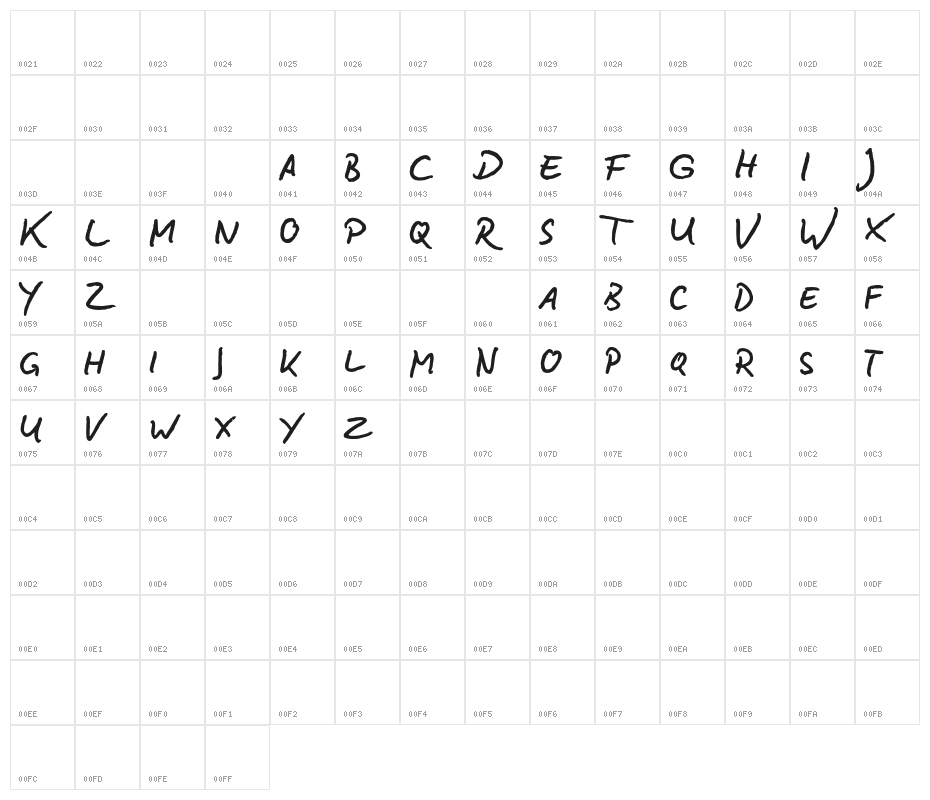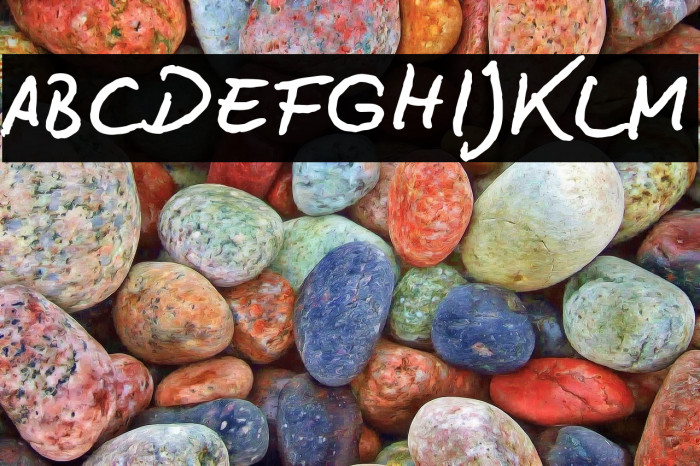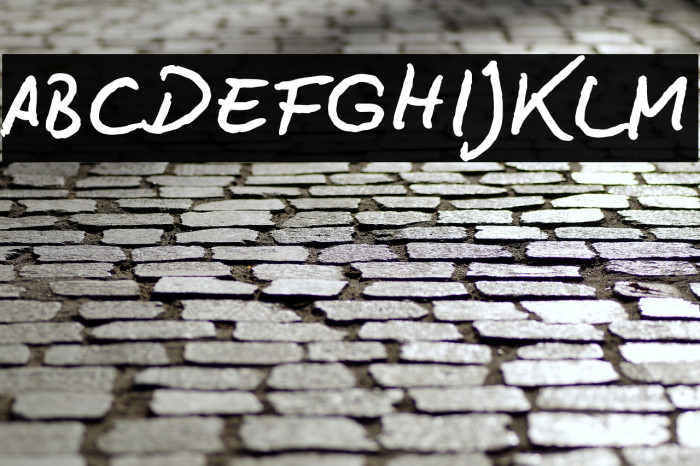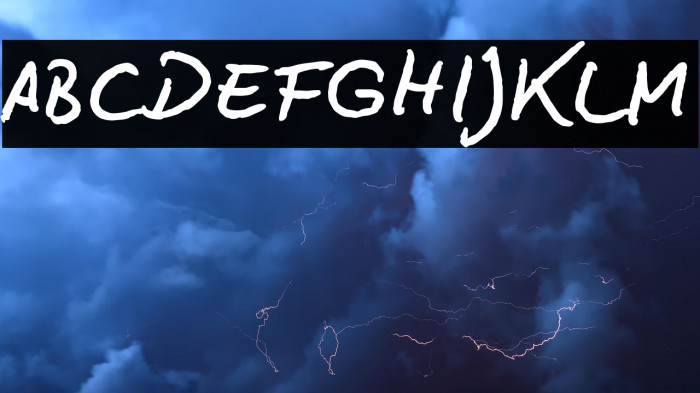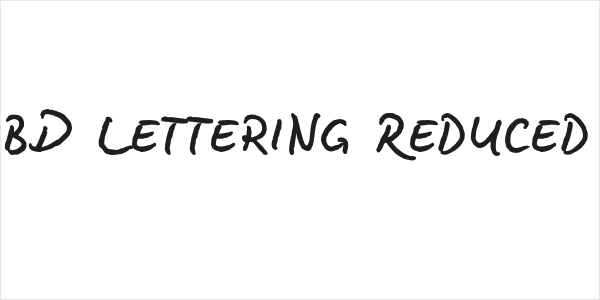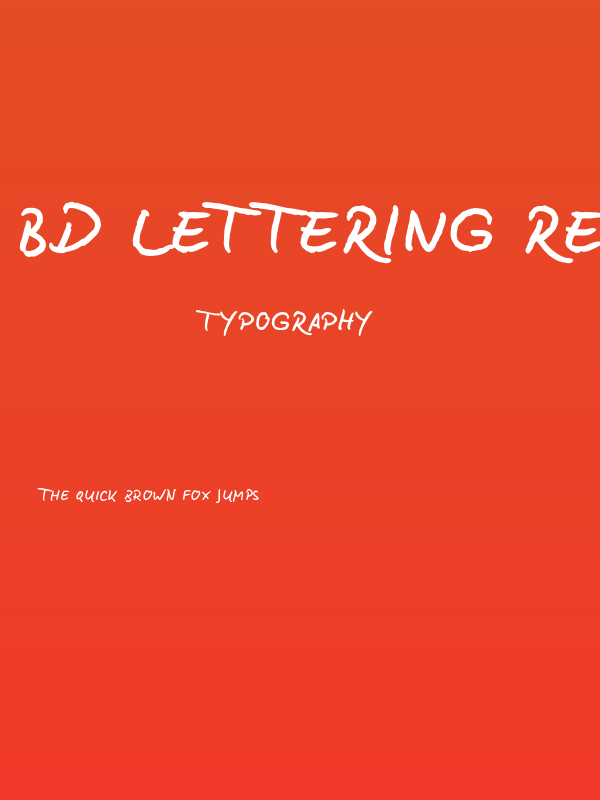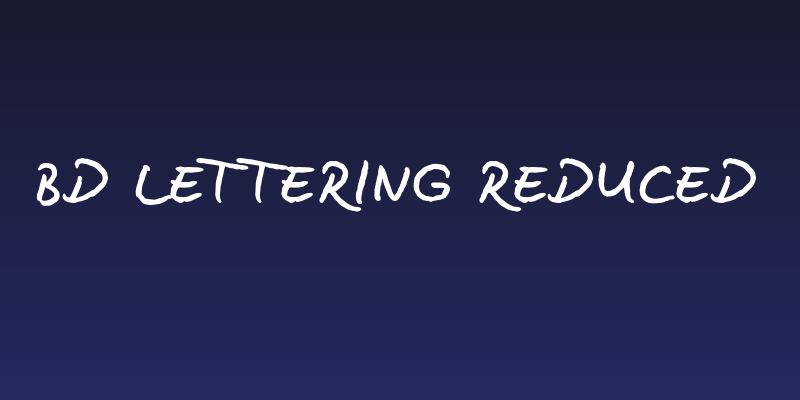
BD Lettering Reduced Font
BD Lettering Reduced Description
This font features a dynamic and expressive handwritten style, characterized by its fluid and slightly irregular strokes. The letters have a casual, personal touch, reminiscent of quick, confident handwriting. The uppercase and lowercase letters maintain a consistent flow, with slight variations that add to the font's charm. The strokes are moderately thick, providing a bold presence without overwhelming the design. This font is versatile, suitable for projects that require a personal or informal touch, such as invitations, greeting cards, or creative branding. Its unique style makes it stand out, offering a blend of readability and artistic flair.
| Overall Style | Casual, Artistic |
| Use Case | Headlines, Logos, Invitations |
| Proposed Projects | Ideal for invitations, greeting cards, creative branding, and personal projects. |